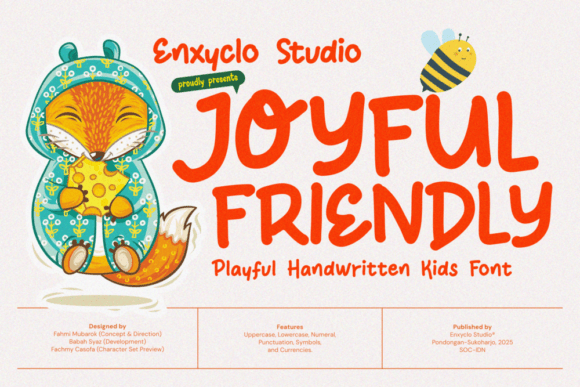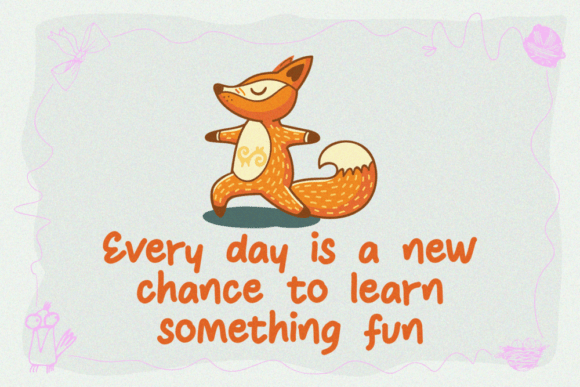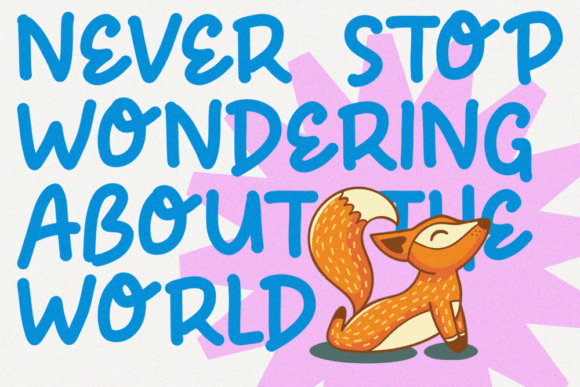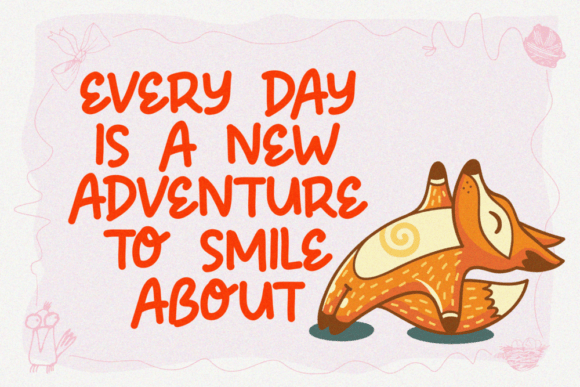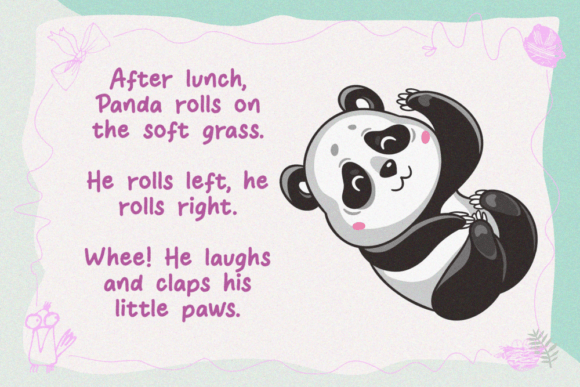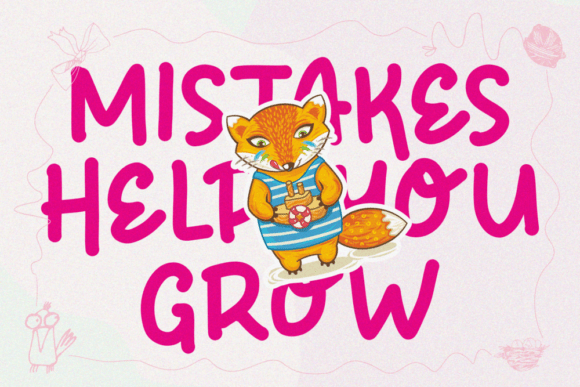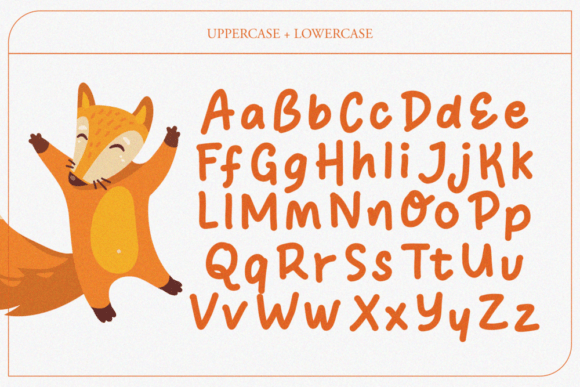
Unlock the Magic of Storytelling with Joyful Friendly Font
As a designer, have you ever stumbled upon a font that makes your imagination run wild? For me, that moment came when I was working on a children’s book project, and I needed a font that would capture the whimsy and wonder of a storybook adventure. I discovered the Joyful Friendly Font, and it was love at first sight – or rather, love at first letter!
This charming handwritten font is designed to transport you to a world of fairytales and imagination, where the lines between reality and fantasy blur. With its soft, playful strokes, Joyful Friendly Font adds a touch of storytelling magic to every design, making it the perfect choice for children’s books, illustrated fairytale covers, and adventure-inspired posters.
Whether you’re a seasoned designer or just starting out, the Joyful Friendly Font is a valuable addition to your toolkit, offering a unique and versatile way to bring warmth and personality to your designs.
Key Features of Joyful Friendly Font
- Unique Characteristics: This font features a playful, approachable design with rounded edges and a friendly feel, making it perfect for use in children’s books, educational materials, and other applications where a welcoming tone is desired.
- Language Support: Joyful Friendly Font includes support for over 200 languages, including Latin, Cyrillic, and Greek scripts, making it a versatile choice for global audiences.
- Kerning and Ligatures: The font includes advanced kerning and ligature tables, ensuring smooth and professional-looking text even in complex layouts.
Designer Review: Joyful Friendly Font
I’ve had the chance to work with Joyful Friendly Font and here’s my honest take on this font.
- Approachable feel: This font screams ‘friendly’ and I love how approachable it feels. It’s perfect for designs that need a warm and welcoming tone.
- Legibility: Despite its playful nature, Joyful Friendly Font is surprisingly easy to read, even in smaller sizes.
- Customization options: The font offers a range of weights and styles, giving you the flexibility to adapt it to different design needs.
- Lack of sophistication: While Joyful Friendly Font is perfect for casual designs, it may not be the best choice for more formal or professional projects.
- Overused feel: The font’s playful nature can sometimes make it feel overused or clichéd, especially in designs where you’re trying to convey a more serious tone.
Overall, I think Joyful Friendly Font is a solid choice for designs that need a warm and approachable tone. While it may have some limitations, its customization options and legibility make it a versatile font that can be used in a variety of contexts.
Use Joyful Friendly Font for:
– Event invitations and social media graphics
– Blog posts and articles with a friendly tone
– Product packaging and branding materials
– Social media posts and stories with a playful tone
– Always pair Joyful Friendly Font with a clear and readable font for better readability.